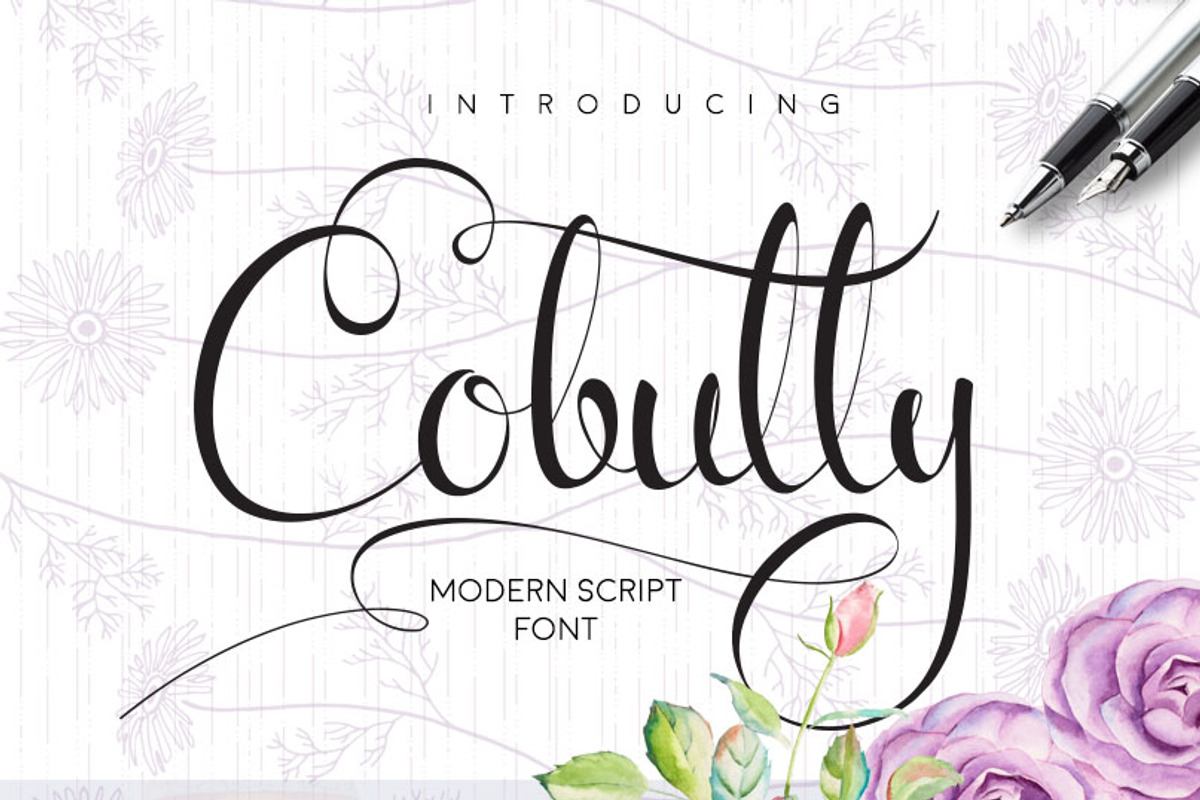
Cobully Script Font Free Download
Bring bold personality and vintage charm to your designs with Cobully Script Font Free Download. This retro-inspired script font features thick brush strokes, smooth curves, and a handcrafted feel—perfect for logos, packaging, signage, apparel, and branding that demands a fun, standout look.
Cobully blends classic script styling with a touch of swagger, offering uppercase and lowercase letters, numbers, punctuation, and stylish ligatures. It’s ideal for testing vibrant, high-energy compositions that balance nostalgia with modern appeal.